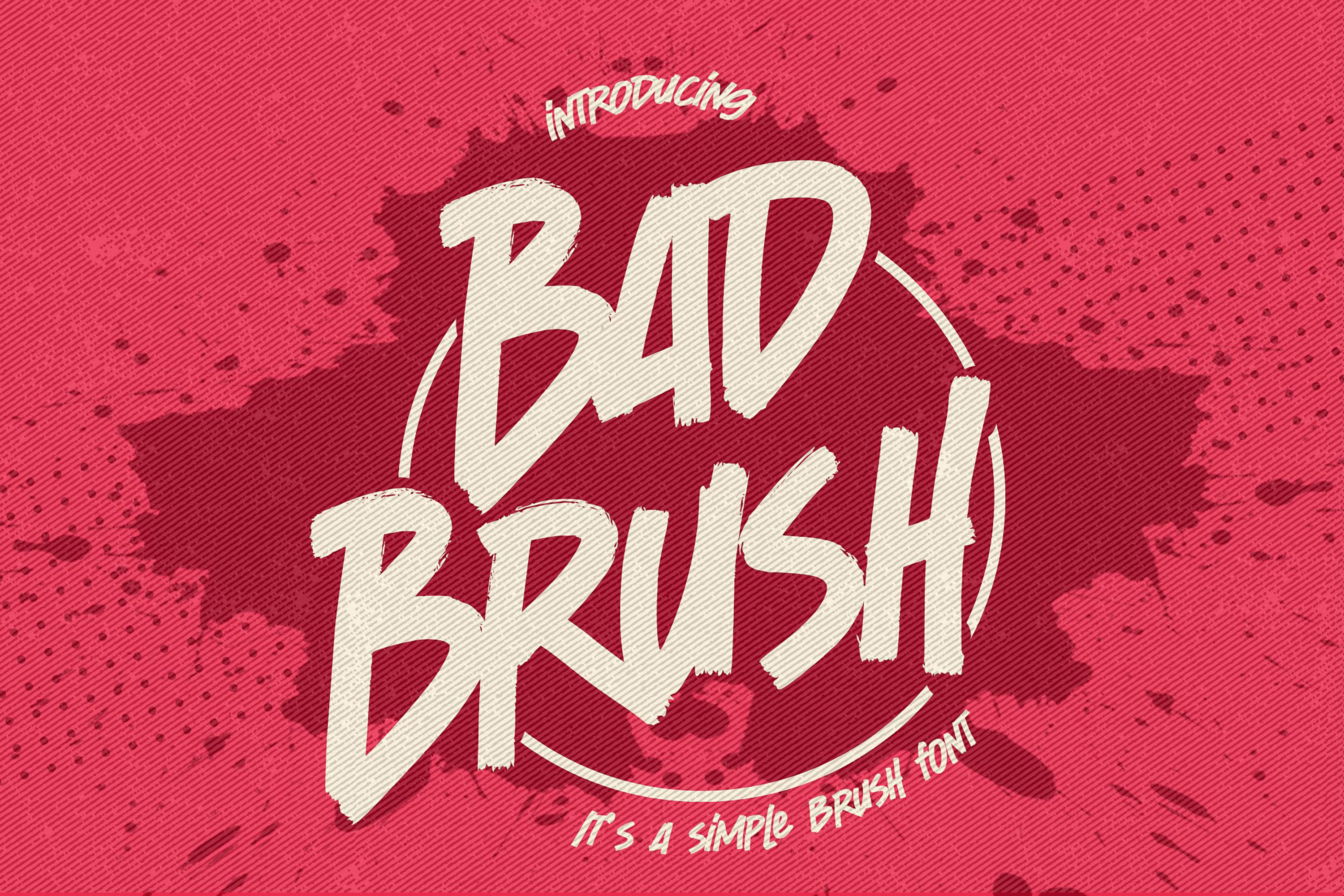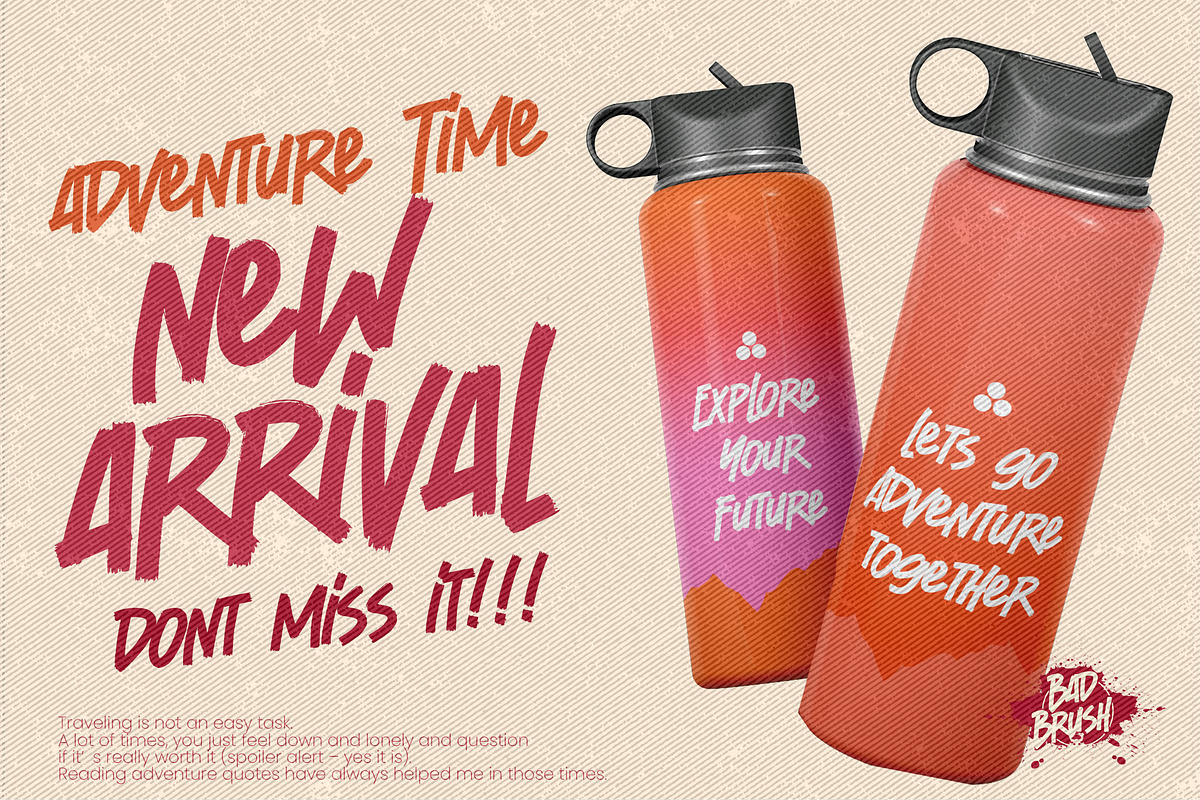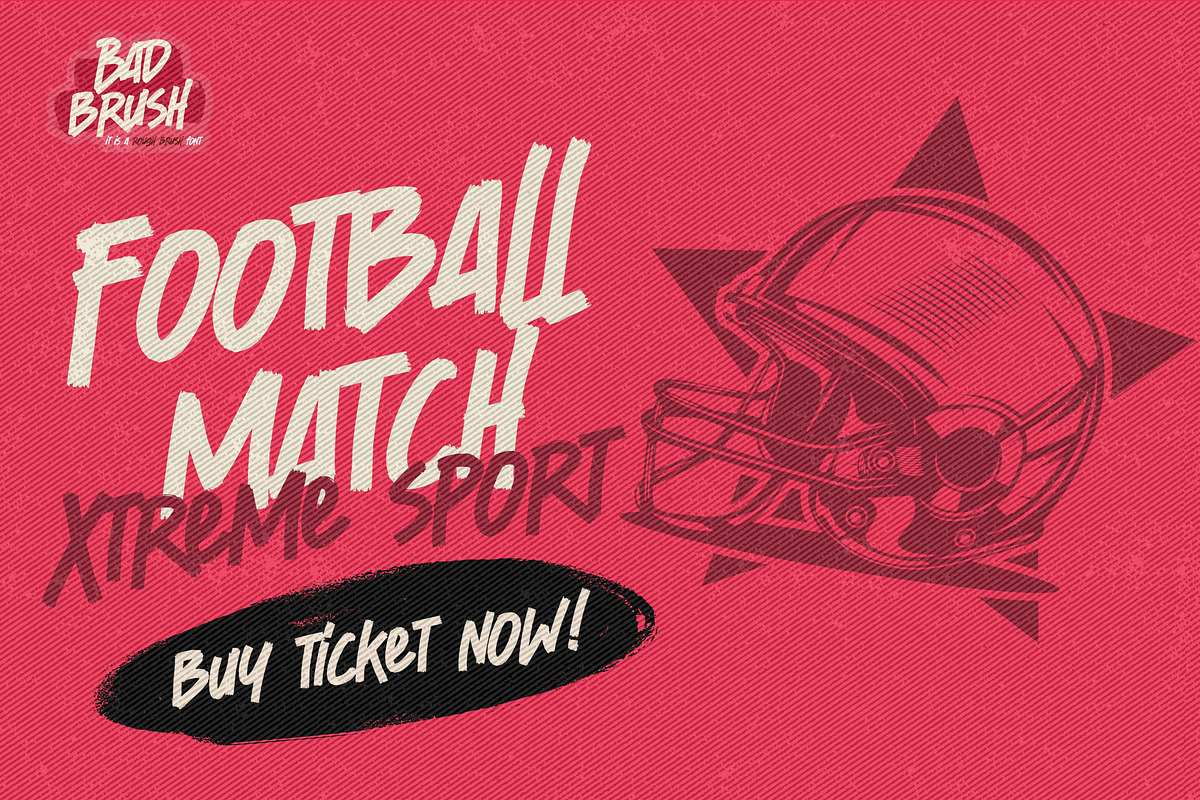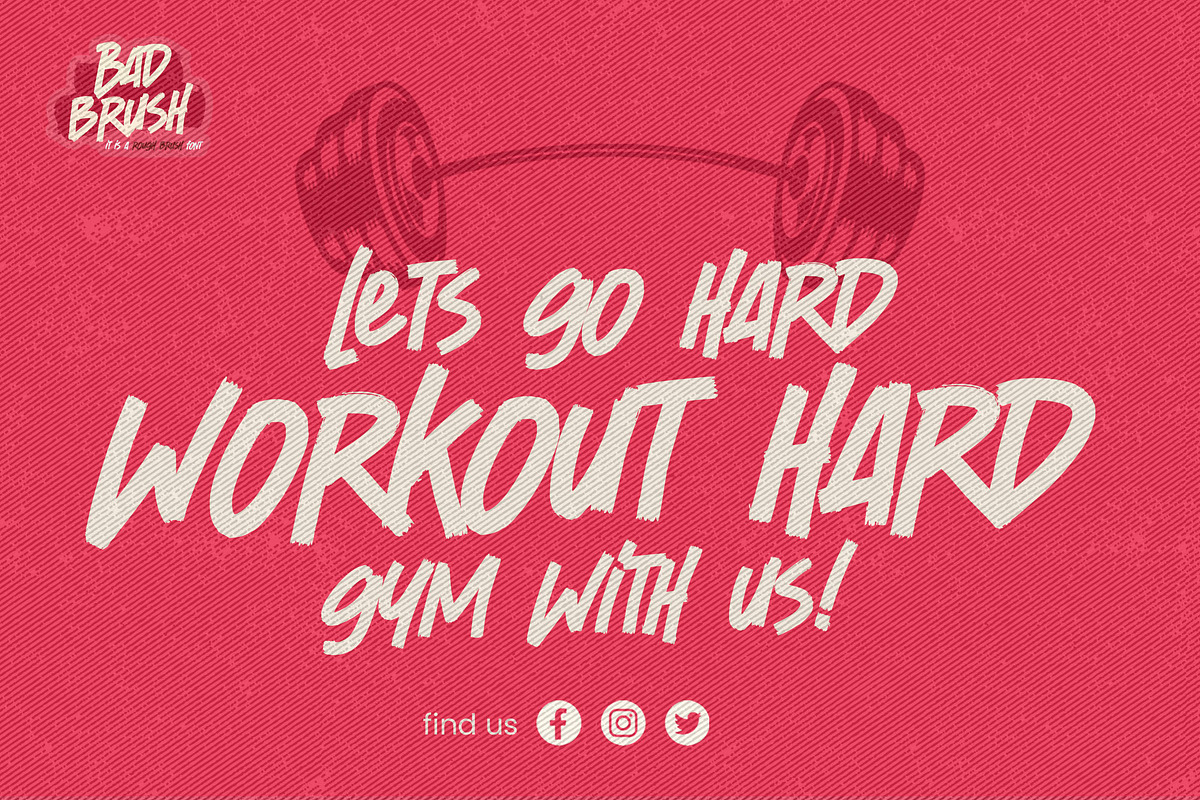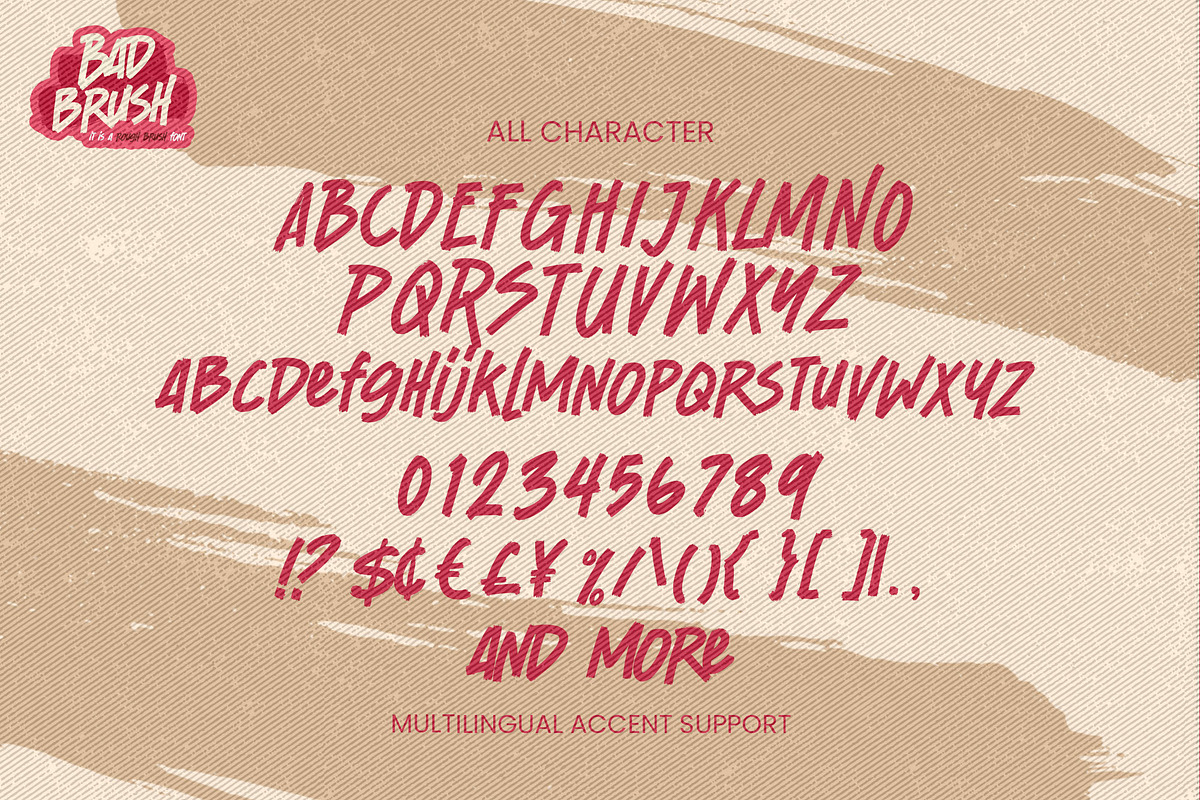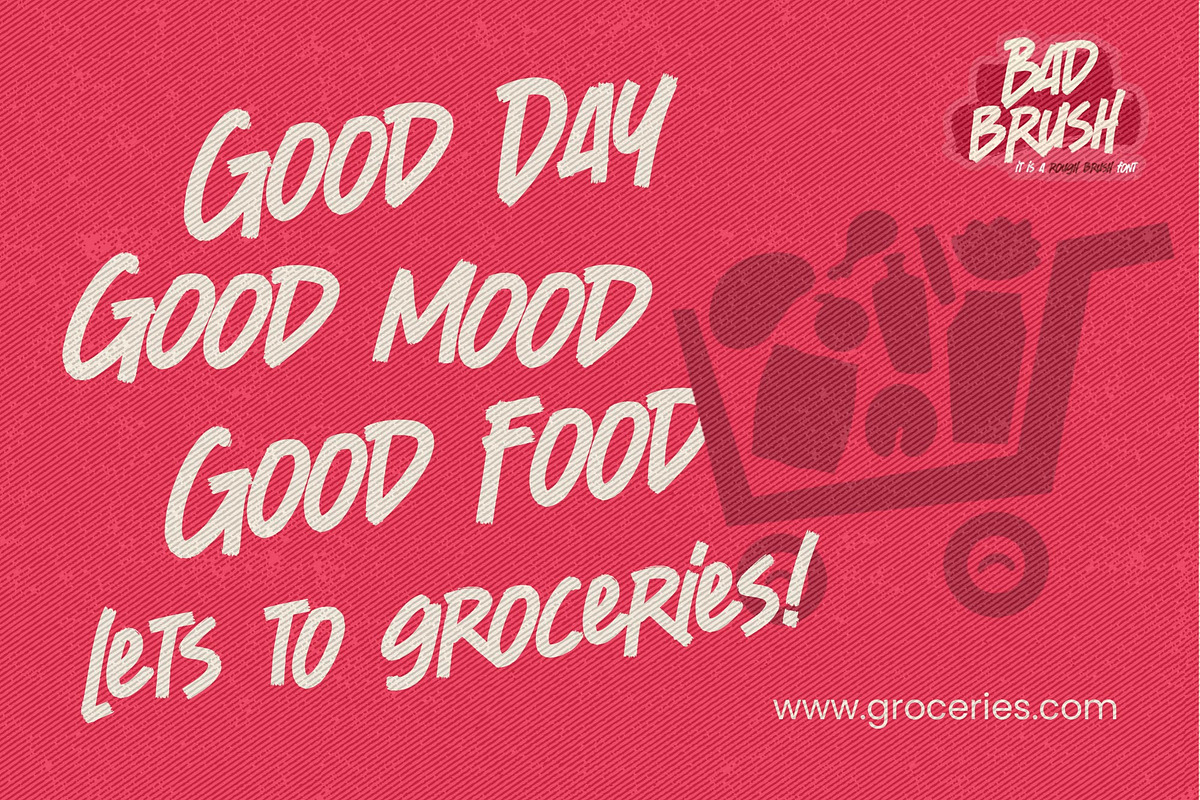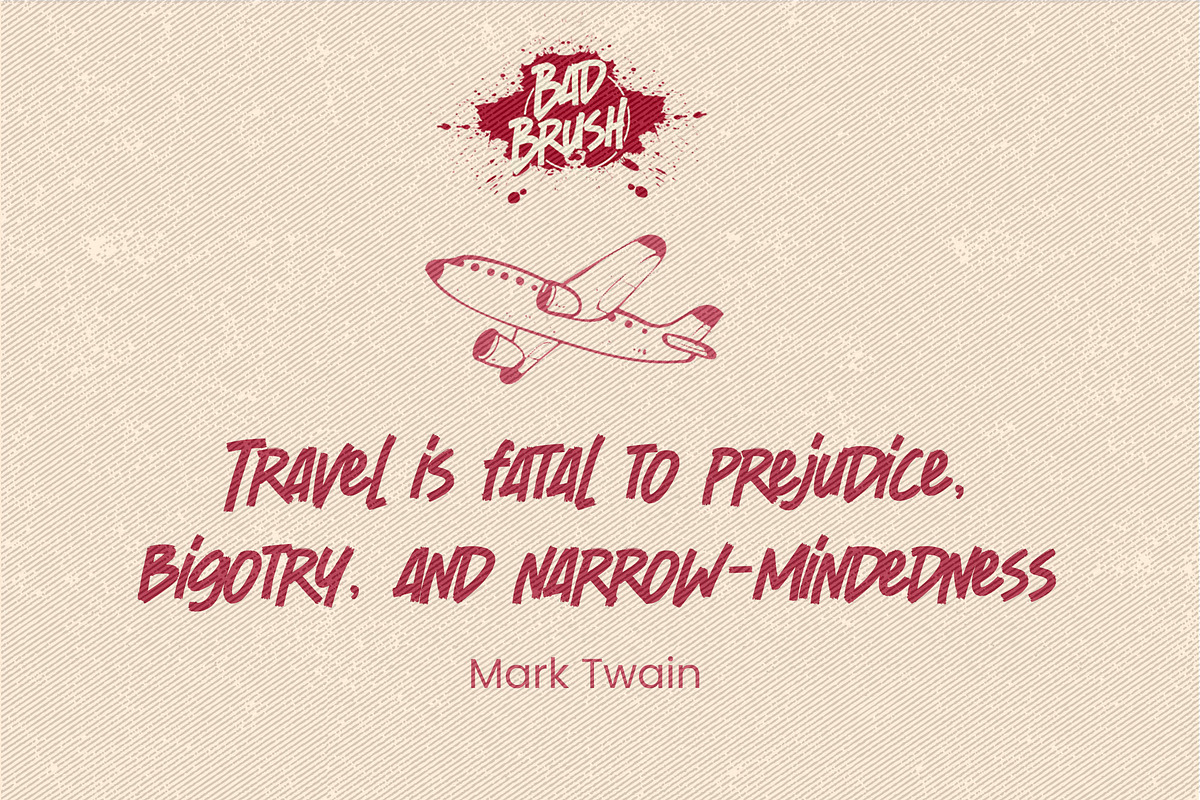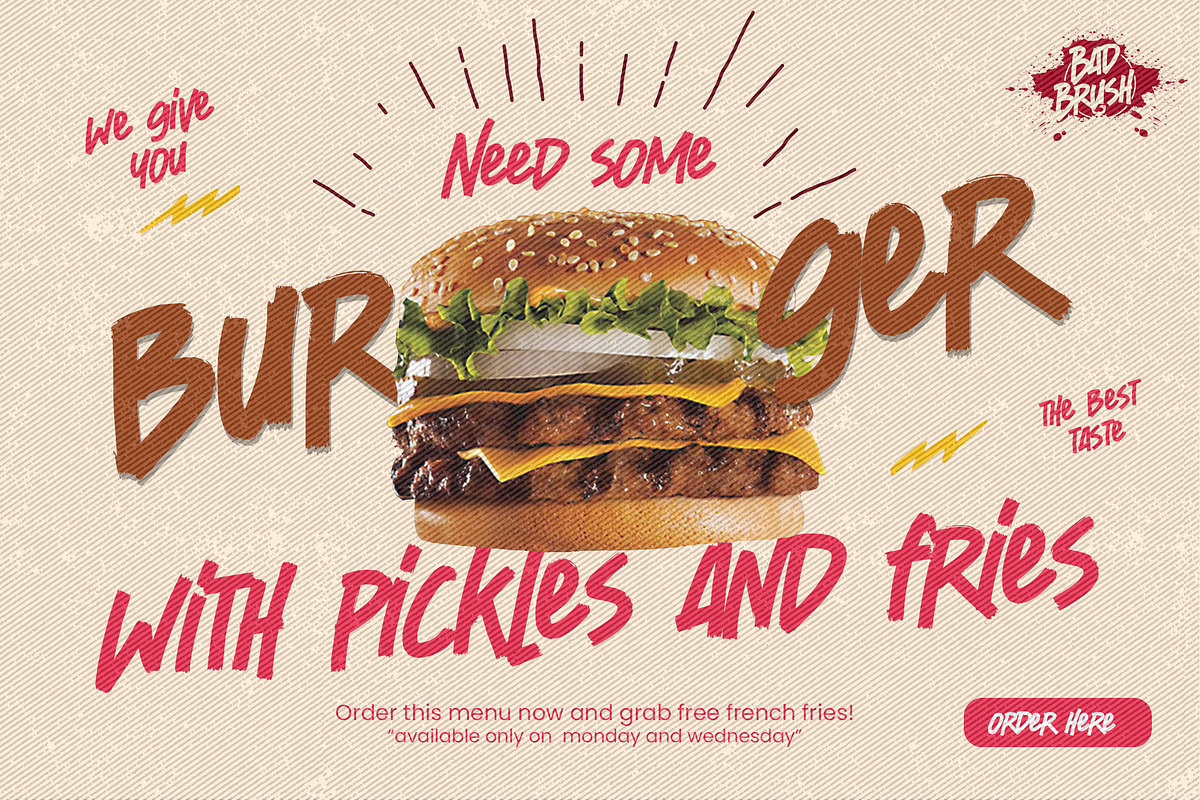
BAD BRUSH - It's A Simple Brush Font
Hello Everyone, introduce our new product font Bad Brush It's A Simple Brush Font. font is a Strong Style and classy style with a clear style and dramatic movement.
This font Bad Brush is great for your next creative project such as logos, printed quotes, invitations, cards, product packaging, headers, Logotype, Letterhead, Poster, Design this font is great for your creative projects such as watermark on photography, and perfect for logos & branding, invitation,advertisements,product designs, stationery, wedding designs,label ,product packaging, special events or anything that need handwritting taste. That is why Bad Brush has charming, authentic and relaxed characteristic more natural look to your text